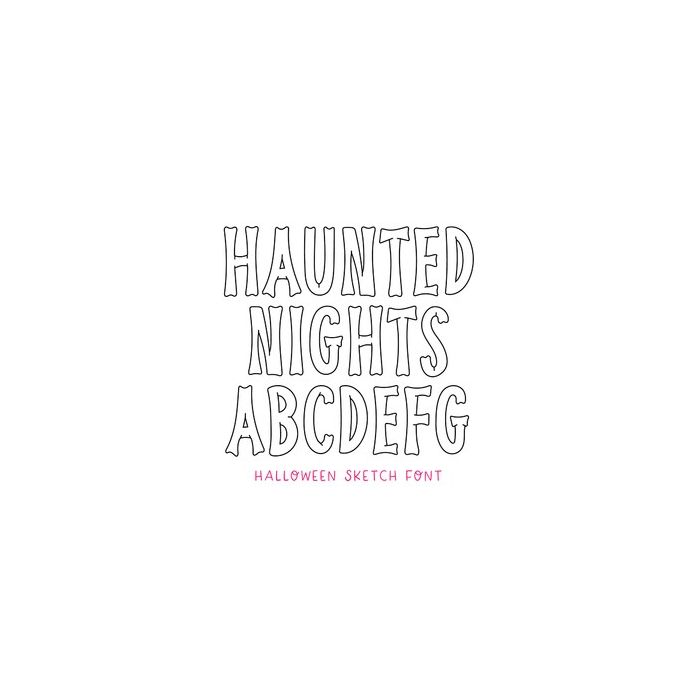
BFC Haunted Nights Sketch Spooky Halloween Sketch Font
Haunted Nights Sketch is a spooky sketch font with extra decorative sketch elements in the letters.